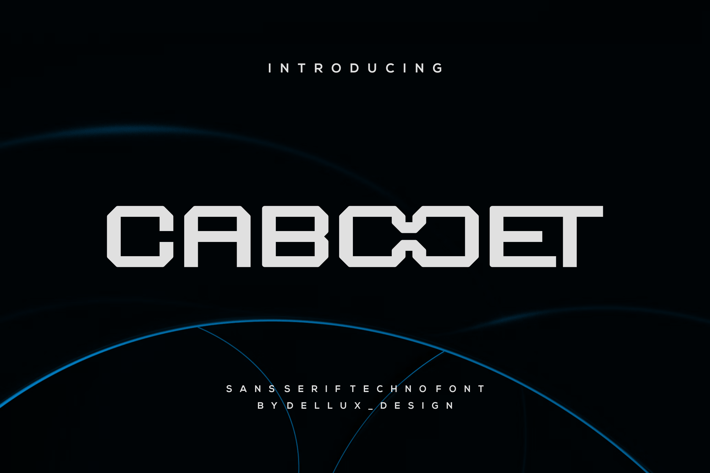
Cabooet - Sans Serif Techno Font
Cabooet - Sans Serif Techno Font is a unique font. Can make it easier to convey the message in your design. Use for awesome display, labeling, clothing, movie sceen, poster, movie title, gigs, album covers, logos, and much more.
Uppercase & lowercase letters
Numbers & punctuation